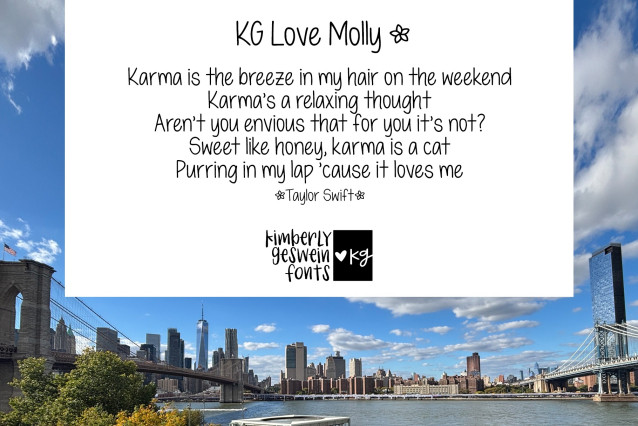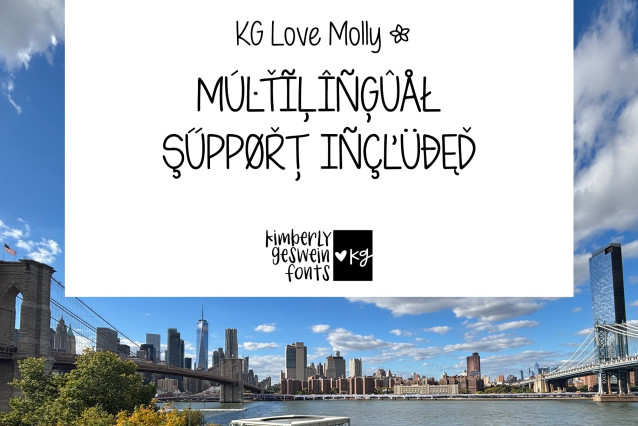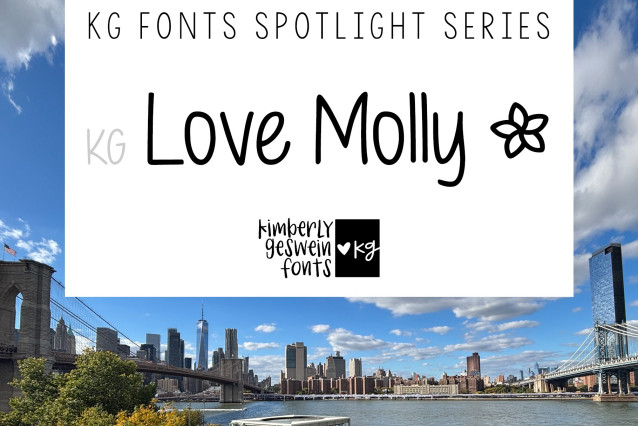
KG Love Molly Font
KG Love Molly Font is Molly’s handwriting and I can’t get enough of her cute style! Enjoy that cute frangipani by typing the vertical bar key. You’ll love Molly’s upbeat, girly shaping and texture in her letters.